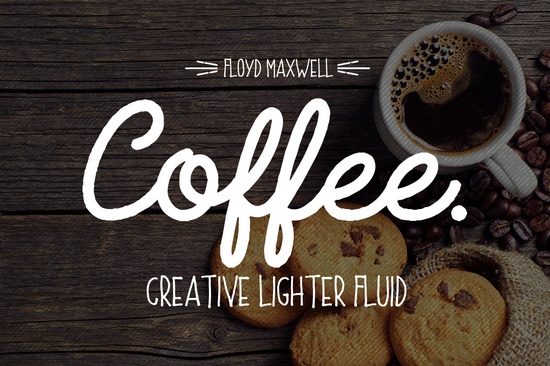
If you're looking for a font pairing that feels warm, approachable, and easy to work with, the Coffee Font + Extras Font set is worth a close look. This font duo pairs a clean sans serif with a friendly script, making it a solid choice for everything from branding projects to greeting cards. The added extras in the set give you more creative flexibility without needing to hunt for matching elements elsewhere.
What makes this font duo feel so approachable?
The charm of the Coffee Font duo comes from its balance. The sans serif side keeps things neat and readable, while the script portion brings a hand-lettered warmth that feels personal rather than stiff. Together, they create a pairing that works well for designers who want something friendly without being overly casual.
The extras included in the set like swashes, ornaments, or decorative elements let you add small finishing touches to your layouts. These little details can make a big difference when you're designing something like a wedding invitation, a product label, or a social media graphic. Instead of pulling in elements from different sources, everything in this set was designed to work together.
Who is this font set a good fit for?
This duo works especially well for:
- Print-on-demand sellers who need legible text that still has personality for mugs, tote bags, and t-shirts
- Small business owners creating logos, packaging, or menu designs
- Crafters making cards, stickers, or sublimation projects
- Wedding and event designers looking for a warm, inviting typeface for invitations and signage
- Social media creators who want text that stands out without feeling overwhelming
Because the sans serif is clean and the script is legible, you won't run into the readability issues that come with some more decorative fonts. This makes it practical for projects where both style and clarity matter.
Where does it work best?
Think about projects where you want to mix a headline with supporting text. For example, you could use the script portion for a product name and the sans serif for a tagline or description. This kind of pairing is common in branding, and the Extras Font elements help bridge the two styles visually.
Some specific uses include:
- Coffee shop menus and branding the name fits the vibe, and the warm aesthetic matches cozy café themes
- Greeting cards and stationery the script adds a handwritten feel without looking messy
- Website headers and blog graphics the duo gives your visuals a polished but approachable look
- Packaging and labels clean enough for small text, charming enough for display type
How does it compare to other font pairings?
If you've explored other script and sans serif combos, you know that finding two fonts that actually look good together can take time. Some script fonts are too ornate to pair easily, while others feel too plain. This set was built as a duo, so the weights and proportions are already balanced.
The Coffee Font + Extras Font set is a practical, well-designed duo that fills a common need: a friendly, warm pairing that works across different project types. Whether you're designing for clients, selling on a print-on-demand platform, or just working on personal creative projects, having a reliable font duo like this one saves you time and keeps your work looking cohesive.